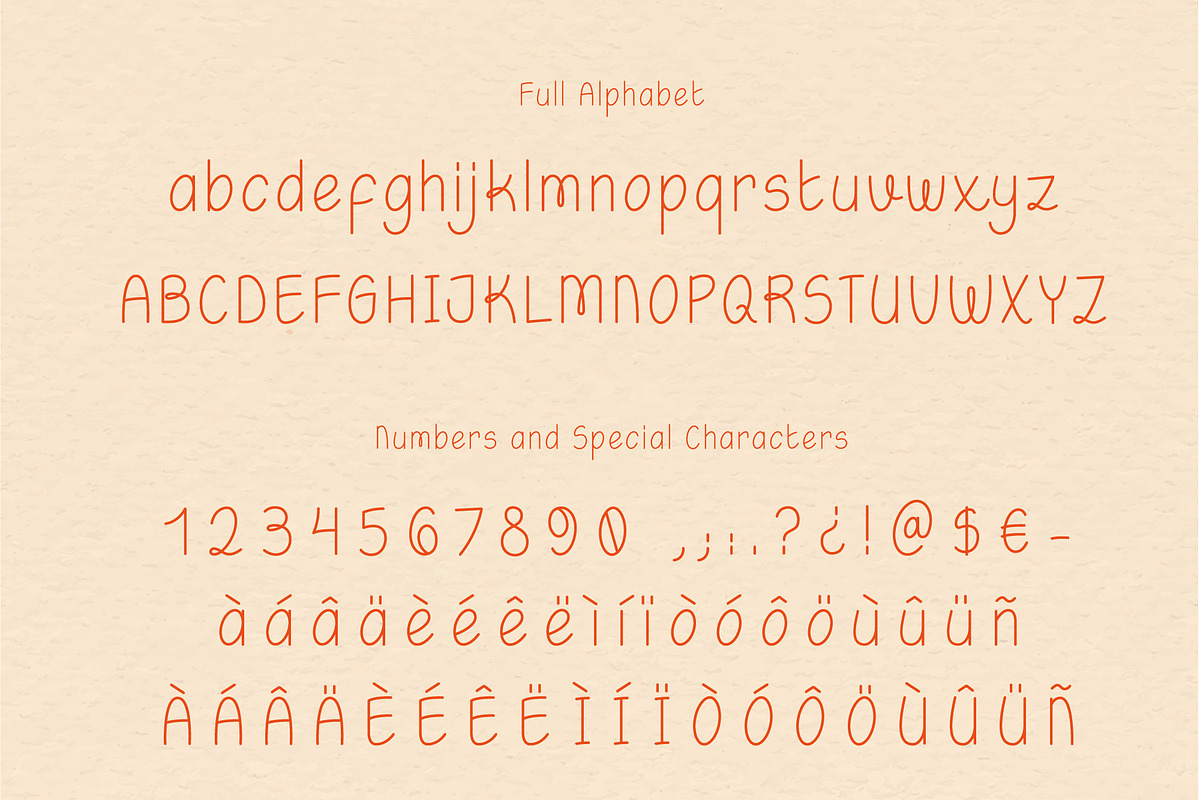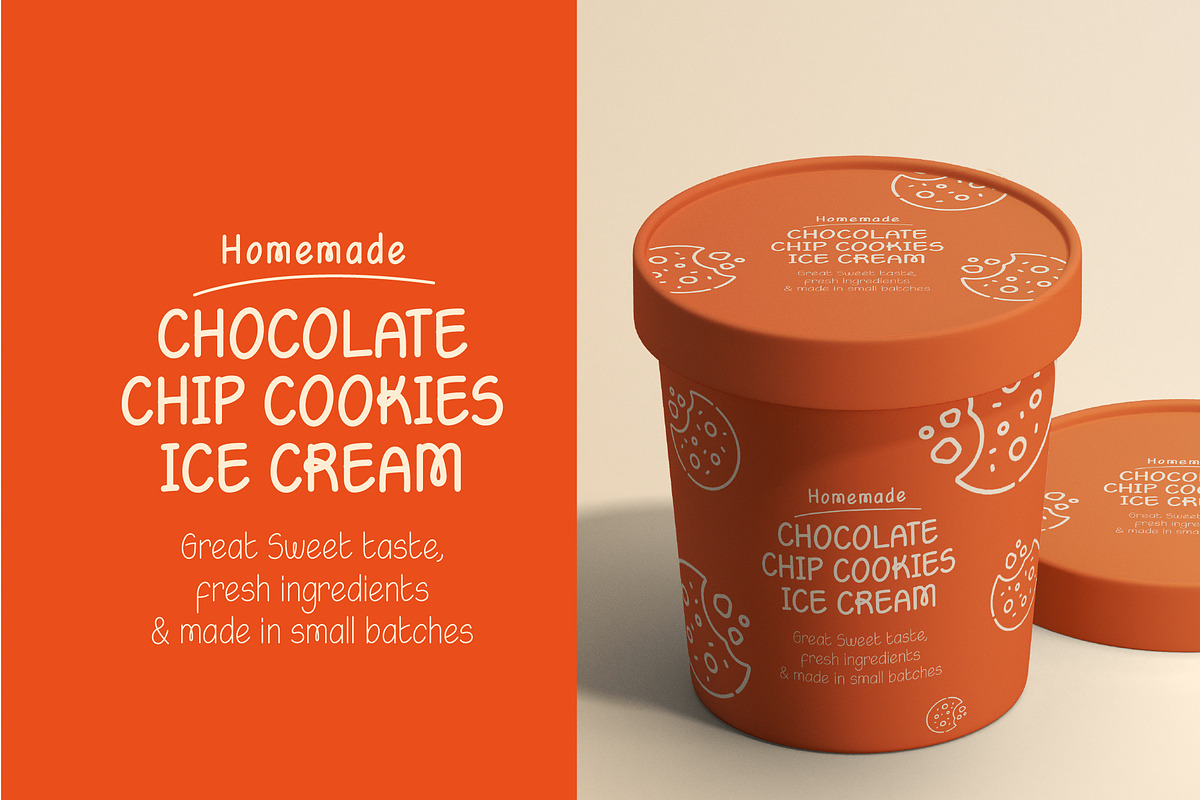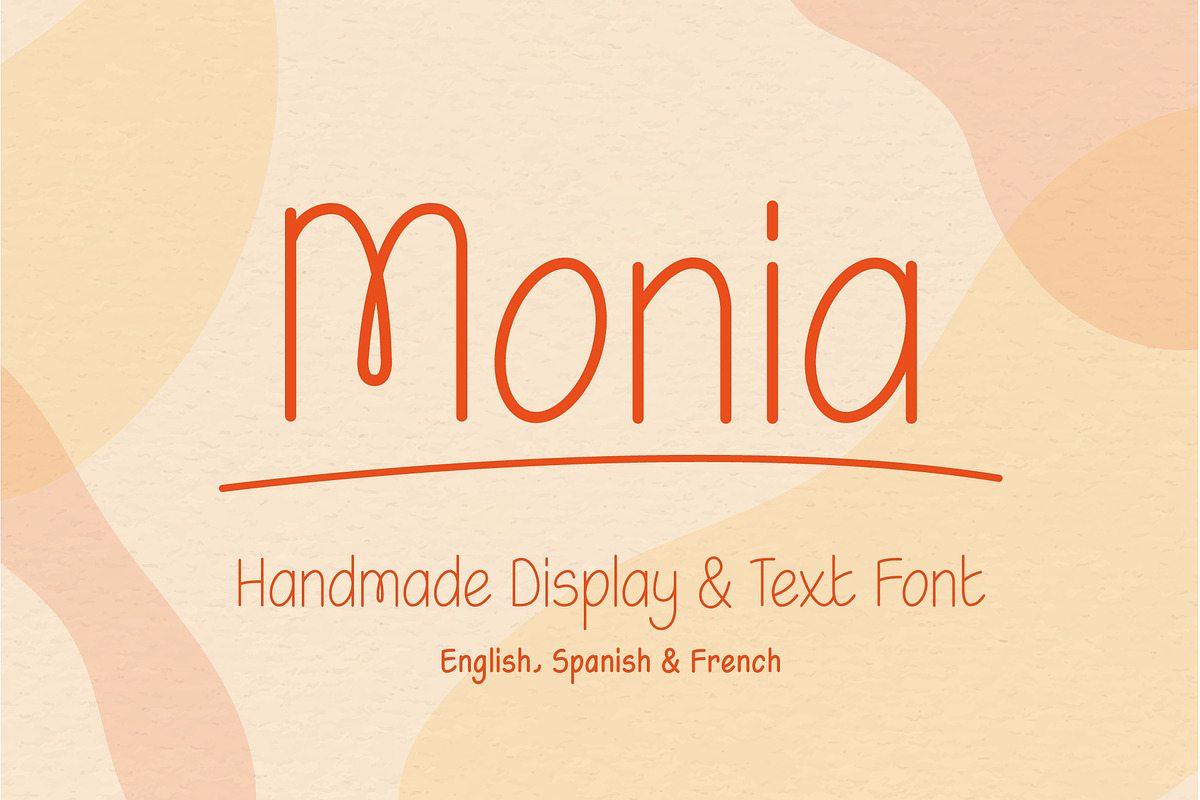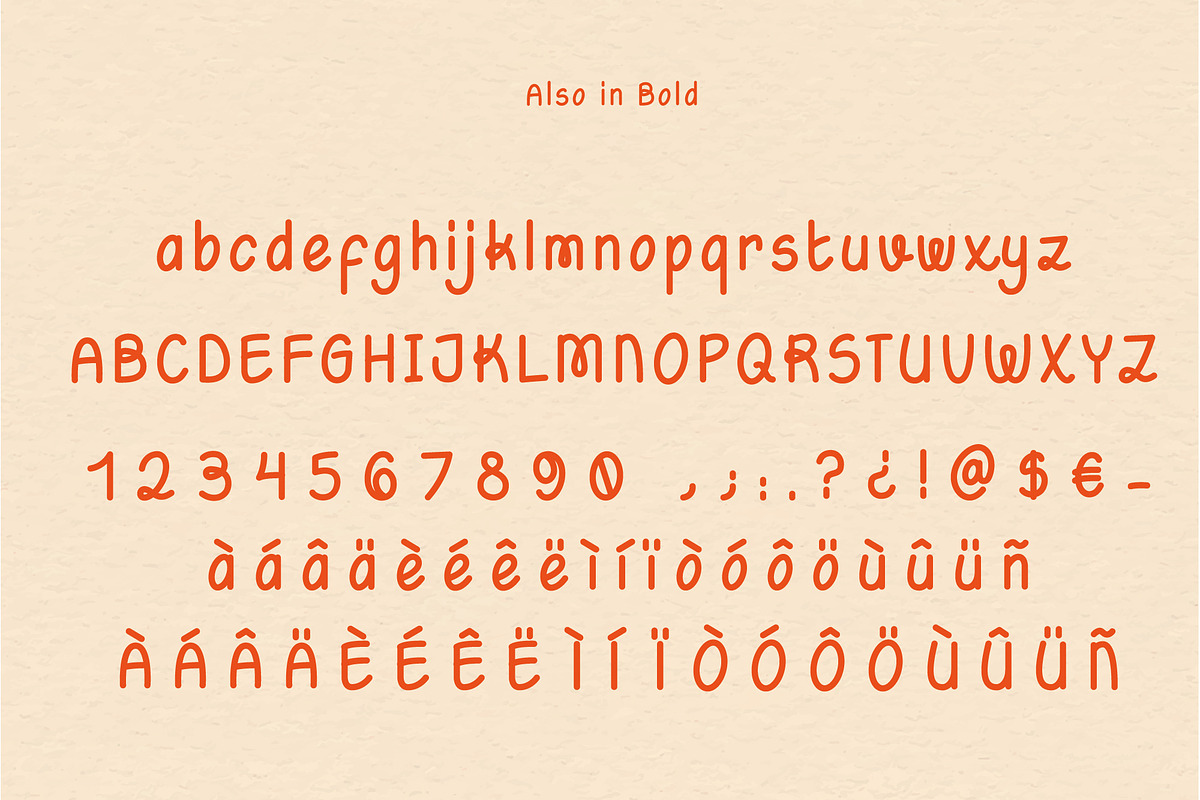
Monia - Handmade Display & Text Font
Monia is a handmade font that has been adjusted to be clean, minimalist, and modern. It can be used for typing English, Spanish, and French. Includes full alphabet, numbers, alternates, special characters, and Ligatures. Comes in Two weights and available as a Webfont as well.